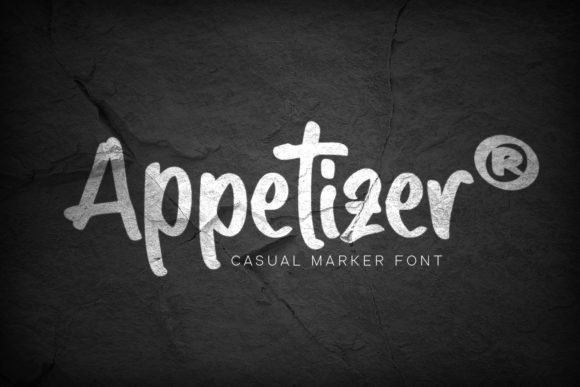
Get Ready to Savor the Flavor of Your Designs
Have you ever stared at a blank canvas, waiting for inspiration to strike? You know, that moment when the creative juices start flowing and your imagination runs wild? For designers, it’s a feeling like no other. And for those who are about to discover the Appetizer Font, get ready to take their designs to the next level!
The Appetizer Font is a simple yet trendy handwritten font that’s perfect for adding a personal touch to your designs. Its natural and unique style makes it incredibly versatile, allowing you to experiment with different ideas and bring them to life. Whether you’re a graphic designer, a marketer, or a social media enthusiast, the Appetizer Font is sure to be a valuable addition to your toolkit.
Key Features of Appetizer Font
- Font Family: Appetizer Font is a sans-serif font family with a unique blend of modern and playful characteristics.
- Font Sizes: Appetizer Font is designed to be highly legible at various font sizes, from 8pt to 24pt, making it suitable for a wide range of applications.
- Resolution: Appetizer Font is optimized for high-resolution displays, including Retina displays, and is suitable for use at resolutions up to 300 DPI.
- Language Support: Appetizer Font supports a wide range of languages, including Latin, Cyrillic, Greek, and many others, making it a versatile choice for global applications.
- Unique Characteristics: Appetizer Font features a unique blend of geometric and organic shapes, giving it a distinctive and modern look that sets it apart from other sans-serif fonts.
Appetizer Font Review
I recently had the chance to work with Appetizer Font, and I must say it’s a decent addition to any designer’s toolkit. Here are some things that ✨ work well:
- Playful and fun:** Appetizer Font has a carefree vibe that makes it perfect for casual projects or branding that needs a youthful feel.
- Good legibility:** I was impressed with how easily readable Appetizer Font is, even at smaller font sizes.
- Customization options:** The font comes with a range of OpenType features that allow for some creative flexibility.
However, I did encounter some limitations ⚠️ that might affect its suitability for certain projects:
- Limited robustness:** Appetizer Font can look a bit fragile at larger font sizes or when used for extended blocks of text.
- Not ideal for formal projects:** The font’s playful nature might not be suitable for more formal or professional branding.
Overall, I think Appetizer Font is a solid choice for designers who need a fun, casual font. While it may not be the best fit for every project, it’s definitely worth considering for the right kind of job.
Appetizer Font Practical Application Guide
Tips for Getting the Most Out of Appetizer Font
Experiment with different font sizes and styles to create visual interest. Use Appetizer Font for headings and titles to draw attention to important information. Pair Appetizer Font with other fonts to create a balanced and harmonious design.
Appetizer Font is ideal for creating eye-catching headings, titles, and subtitles. Use it in branding, marketing materials, and digital designs to add a touch of elegance and sophistication.
Alternatives to Appetizer Font
Great Vibes Font is a modern script font that works well for headings, titles, and short paragraphs. It is ideal for creating a friendly and approachable atmosphere in your design.
Compared to Appetizer Font, Great Vibes Font is more playful and cursive, making it suitable for designs that require a touch of elegance and sophistication. However, it may not be as versatile as Appetizer Font in terms of readability.
Pacifico Font is a beautiful, elegant script font that is perfect for headings, titles, and short paragraphs. It is ideal for creating a sense of relaxation and serenity in your design.
Pacifico Font is more refined and sophisticated than Appetizer Font, making it suitable for designs that require a touch of luxury and glamour. However, it may not be as readable as Appetizer Font in smaller font sizes.